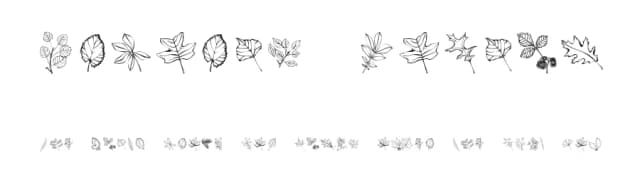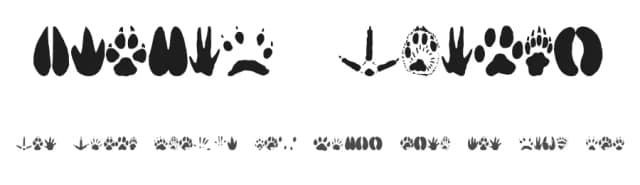
About Agathodaimon Font
Agathodaimon is a dingbat font designed by Andrew D. Taylor. It includes 110 glyphs, a regular weight, TTF (TrueType) format, and 90 languages. Agathodaimon is free to download; check the license details on this page before commercial use. Dingbat fonts like Agathodaimon work best for icons, ornaments, bullet points, and decorative accents.
Agathodaimon Font is a versatile dingbats font that works for both headings and body text. Pair it with a contrasting sans-serif or serif font to add visual interest and a clear distinction between titles and body copy.
Agathodaimon Font
Agathodaimon Font is a dingbats typeface by Andrew D. Taylor, ideal for logos, invitations, branding, and creative projects.